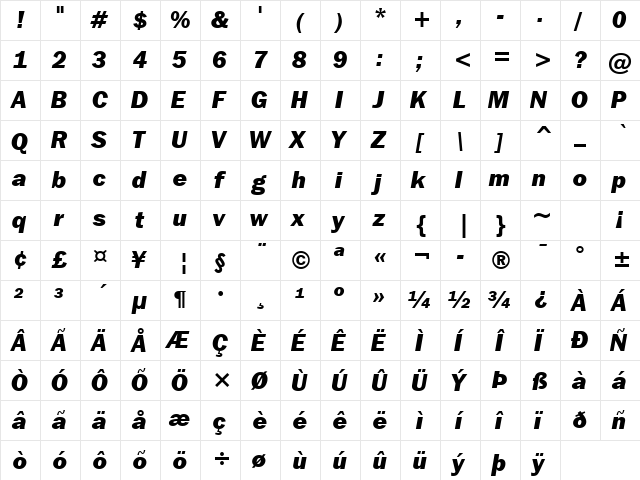
FrnkGothITC HvIt BT Heavy Italic
FrnkGothITC HvIt BT is a composed and adaptable typeface that performs quietly and consistently across a wide range of design contexts. The slanted form adds forward momentum and visual energy.